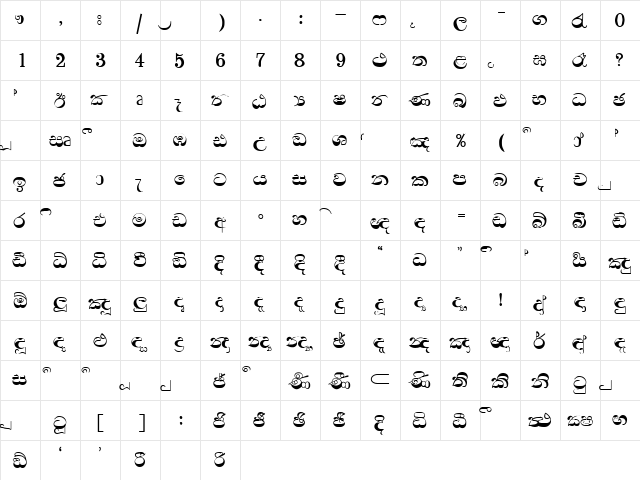
SinNelum NelumA Font Preview
SinNelum NelumA
SinNelum NelumA Font Details
Design Context for SinNelum Typeface
SinNelum takes a measured approach to typography — its balanced proportions and neutral character make it a reliable workhorse for both digital and print work.